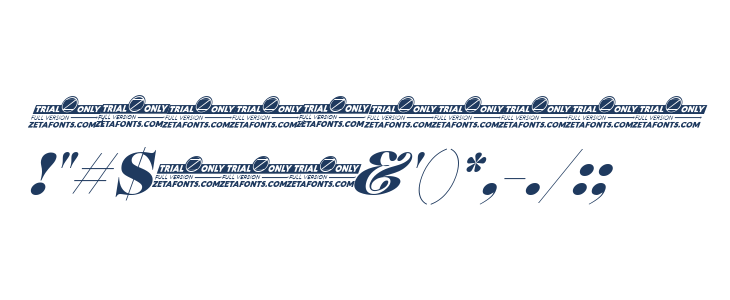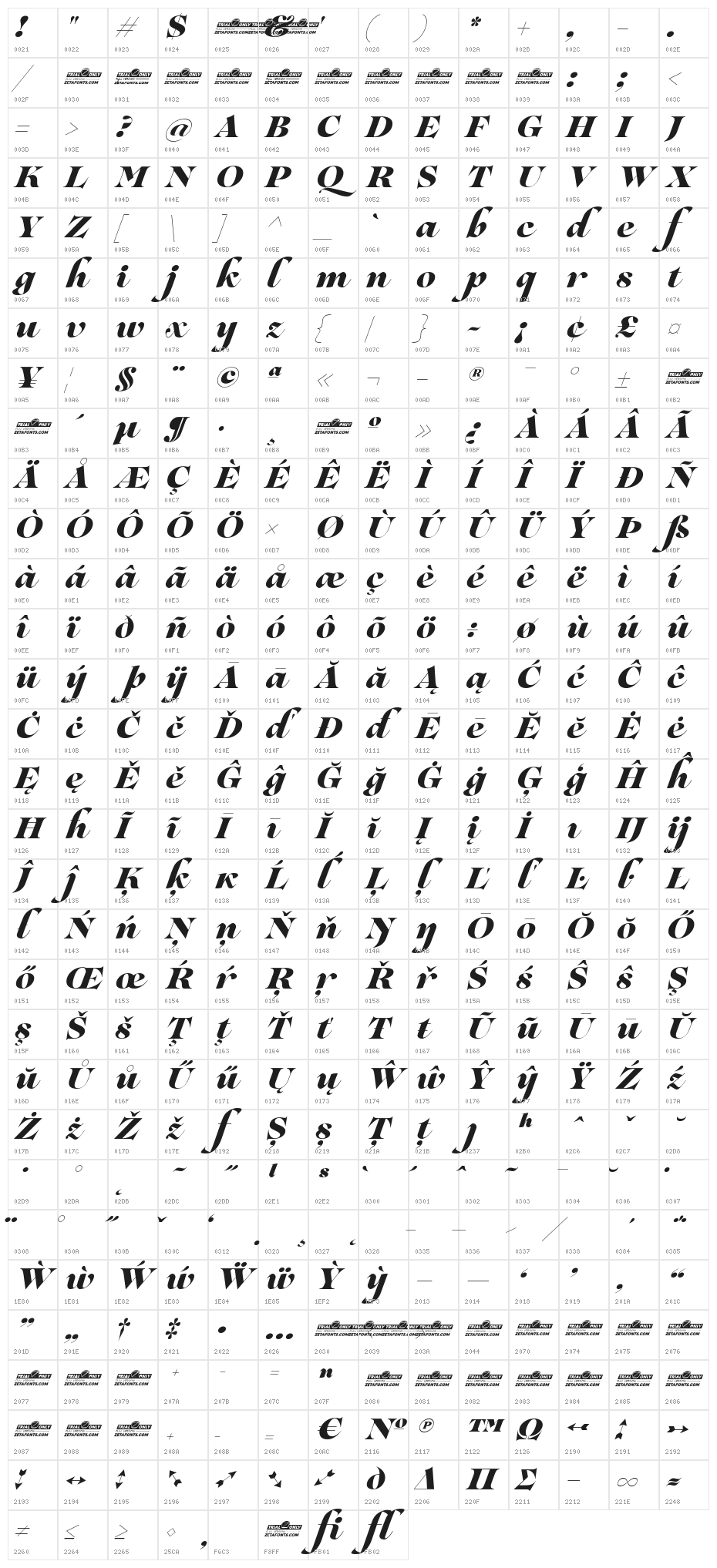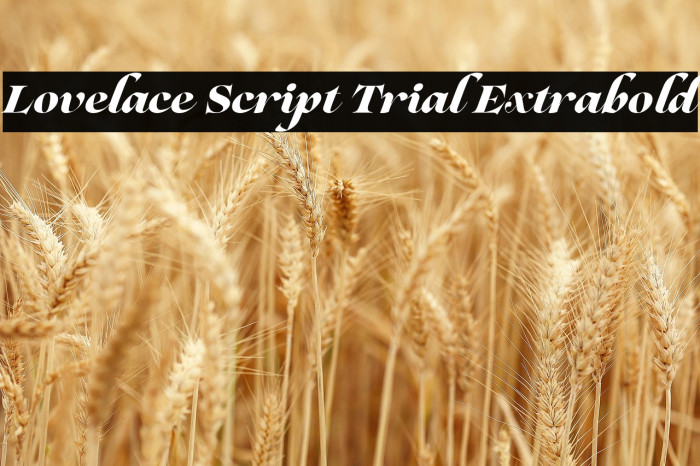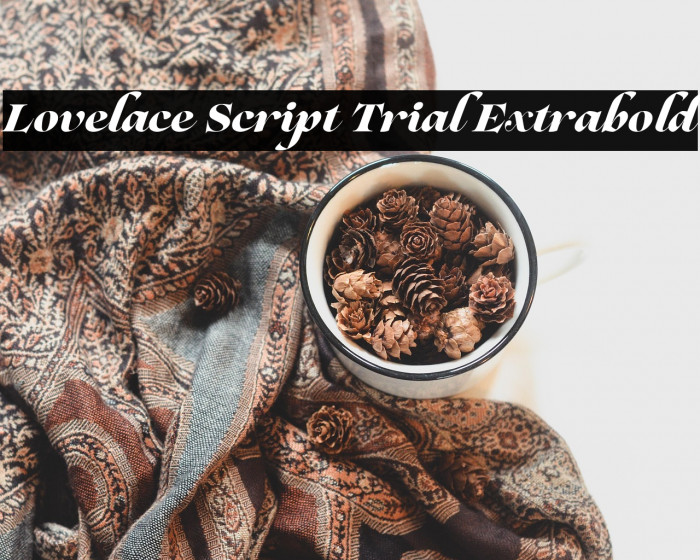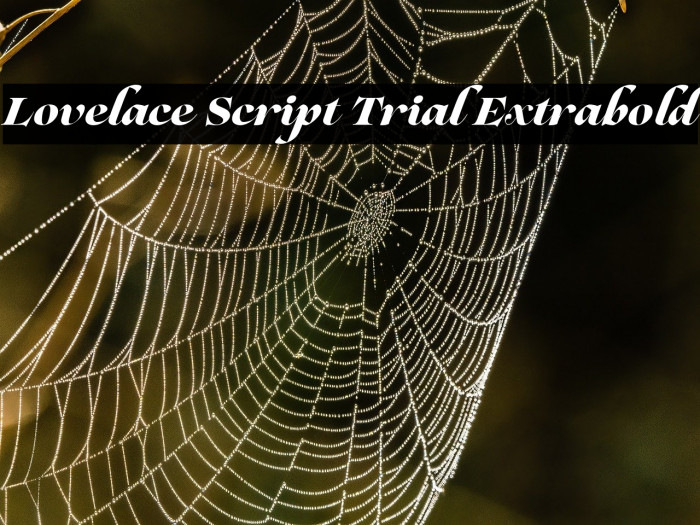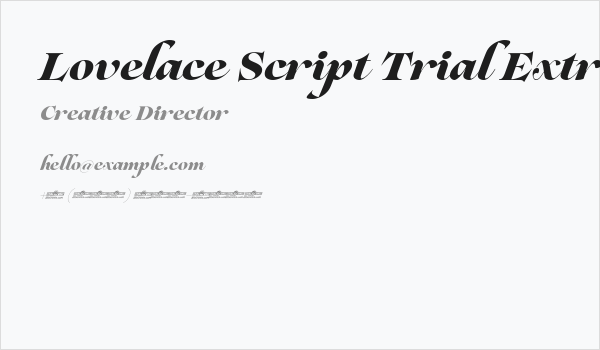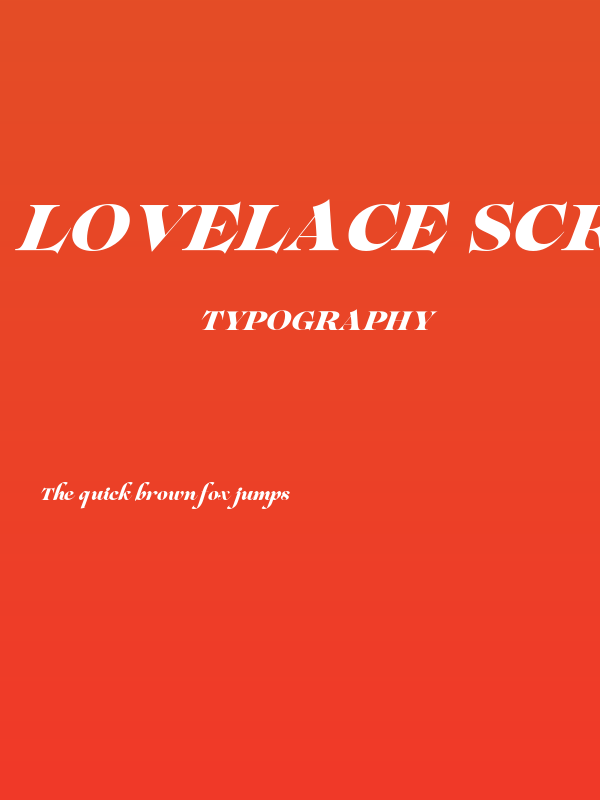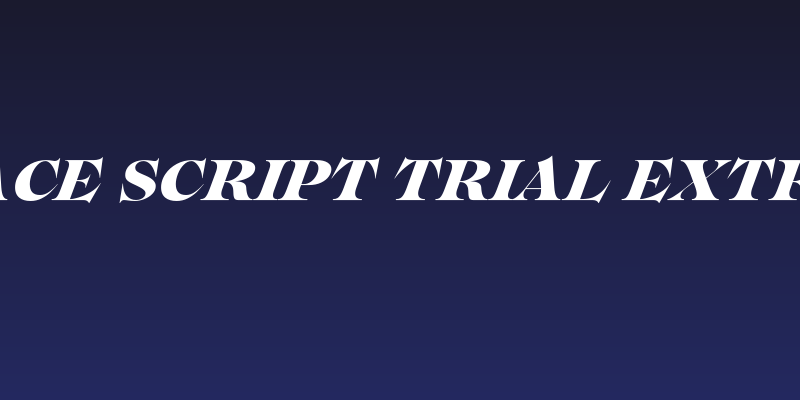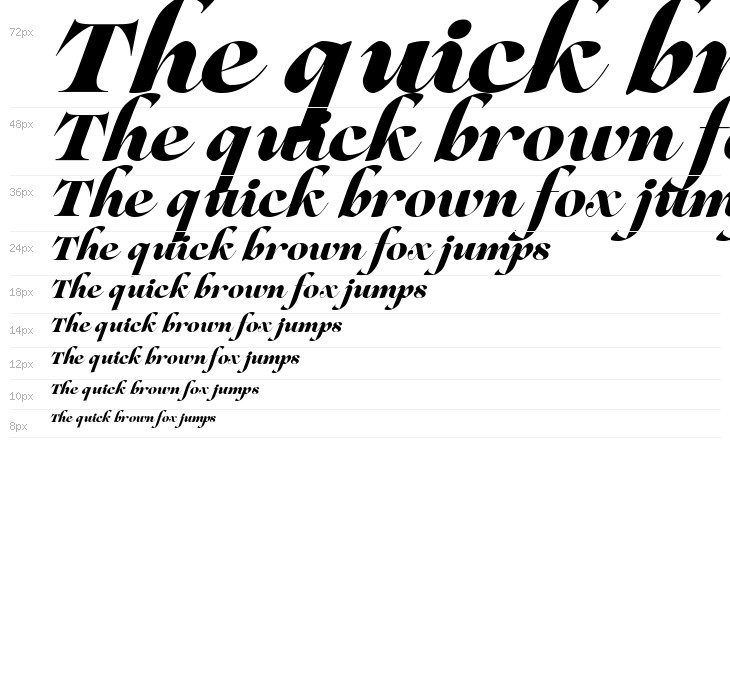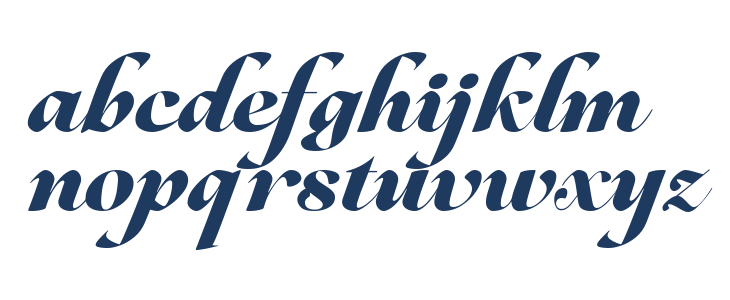
Lovelace Script Trial Extrabold Font
Lovelace Script Trial Extrabold Description
This font exudes a bold and elegant script style, characterized by its flowing, cursive letterforms. The uppercase letters are strikingly angular with a slight slant, while the lowercase letters maintain a smooth, connected flow. The font features high contrast between thick and thin strokes, enhancing its dramatic appearance. The numerals and special characters are designed with the same flair, ensuring consistency across all glyphs. This typeface is ideal for creating a sophisticated and artistic impression.
| Overall Style | Elegant, Decorative |
| Use Case | Logos, Headlines, Invitations |
| Proposed Projects | Ideal for wedding invitations, luxury branding, elegant signage, and artistic posters. |